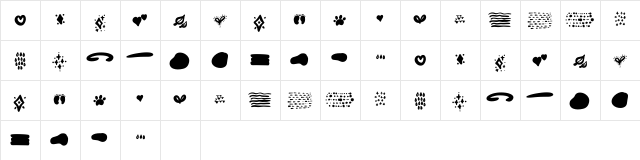
Oh My Baby Extra Regular Font Preview
Oh My Baby Extra Regular
Oh My Baby Extra Regular Font Details
| Designer | Muh Aswar by Azetype Studio |
Design Context for Oh My Baby Extra Typeface
Oh My Baby Extra is a composed and adaptable typeface that performs quietly and consistently across a wide range of design contexts.